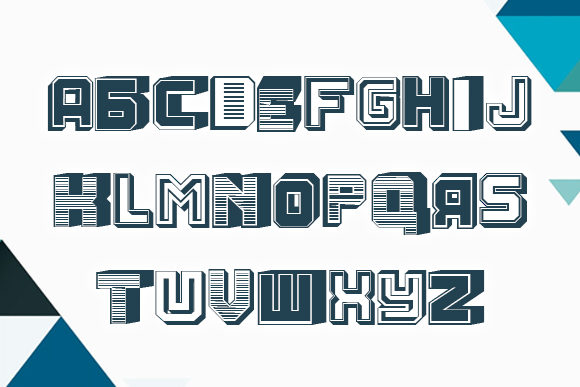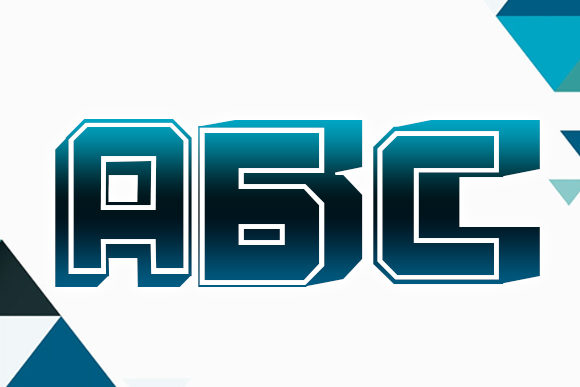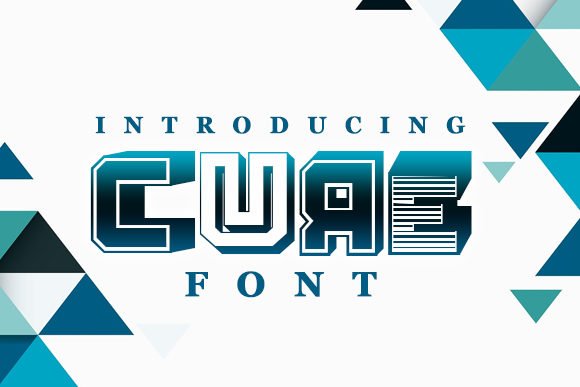
Introduction to Cure Font
Cure is an awesome display font.
Use it to add a playful touch to your designs .
Key Features of Cure Font
Why Choose Cure Font?
Cure Font offers exceptional quality and versatility, making it a valuable addition to your design toolkit. Whether you’re creating for personal projects or commercial use, Cure Font delivers professional results.